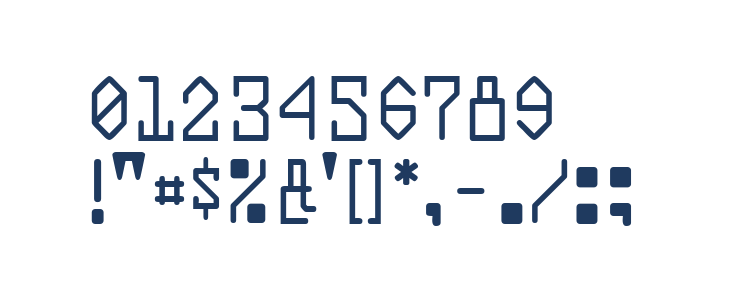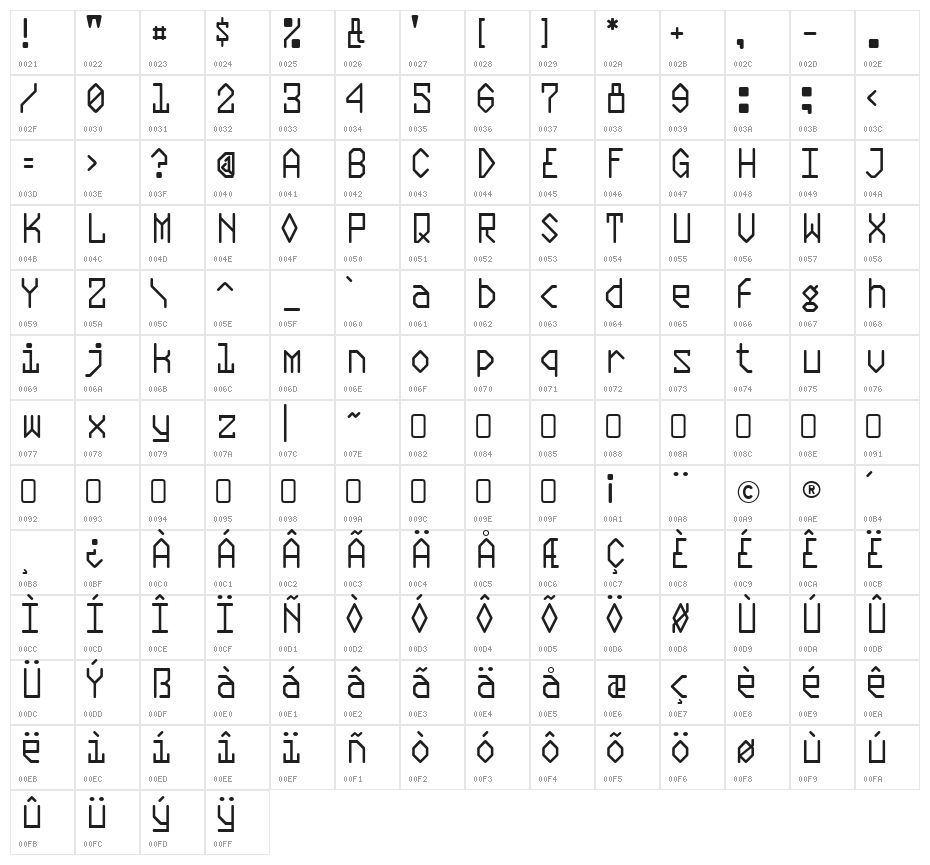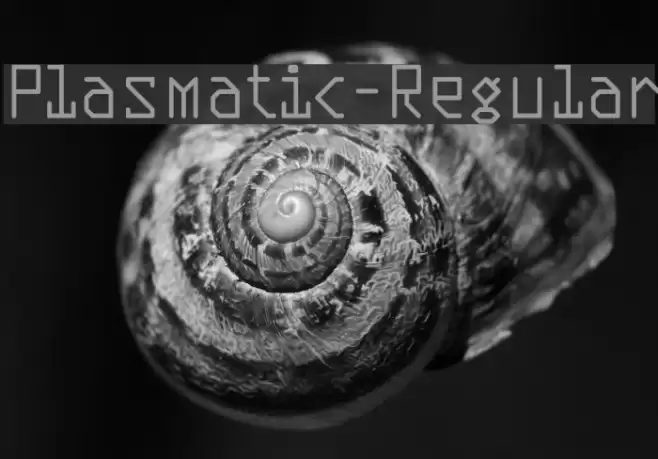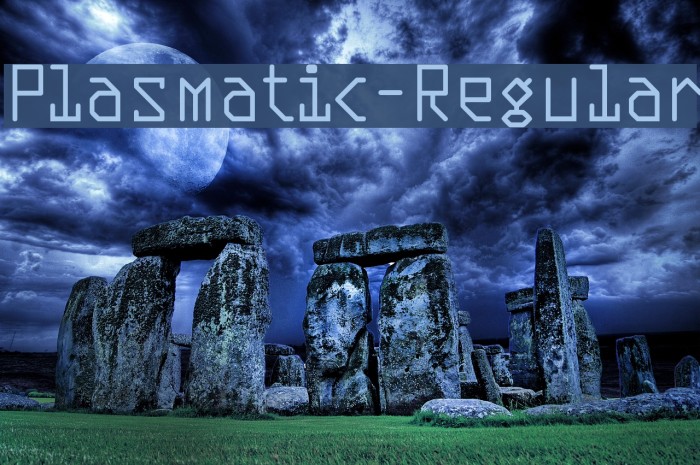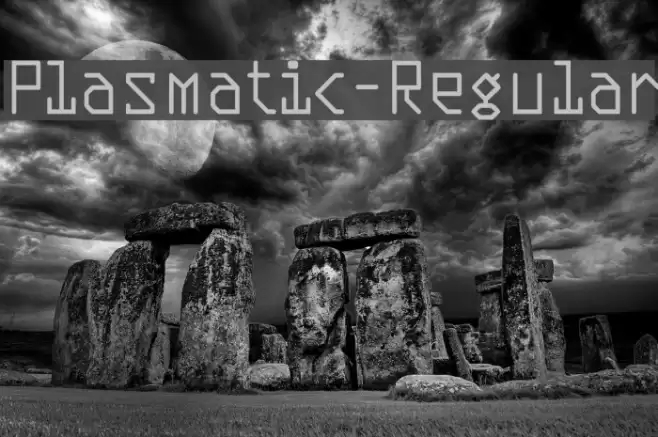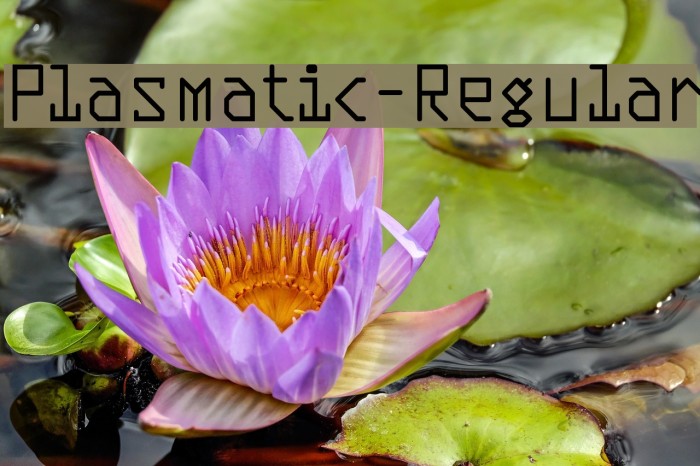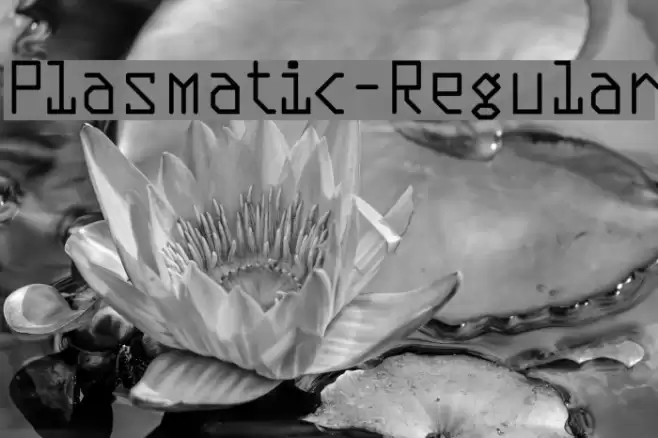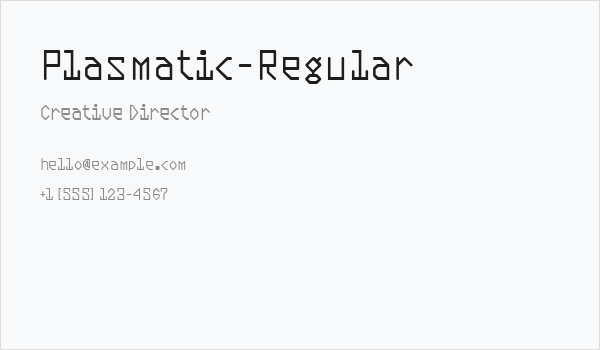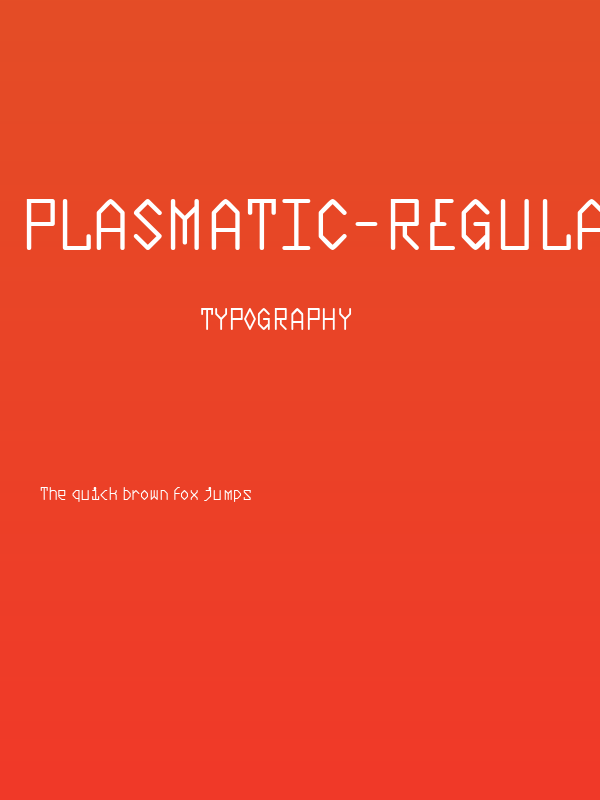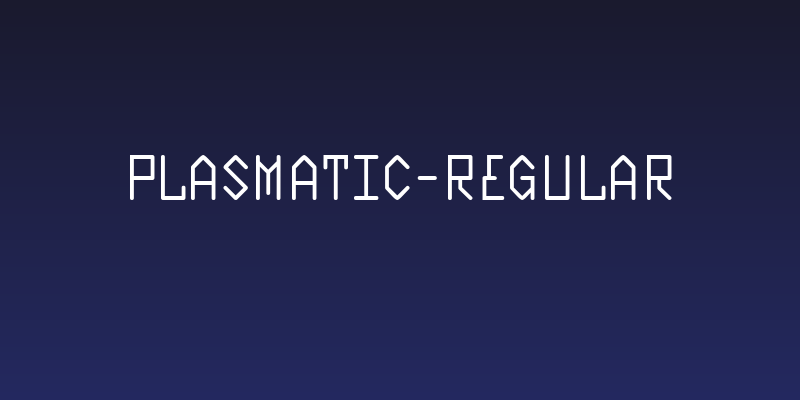
Plasmatic-Regular Font
Plasmatic-Regular Description
This font features a futuristic and geometric design with a distinct angular style. The characters are constructed with straight lines and sharp angles, creating a modern and tech-inspired appearance. The uppercase and lowercase letters maintain a consistent height, contributing to a uniform look. The numerals and special characters follow the same design principles, ensuring cohesion across all elements. The font's unique structure makes it stand out, ideal for projects that require a contemporary and edgy aesthetic.
| Proposed Projects | Ideal for tech branding, sci-fi themed projects, modern posters, and digital interfaces. |